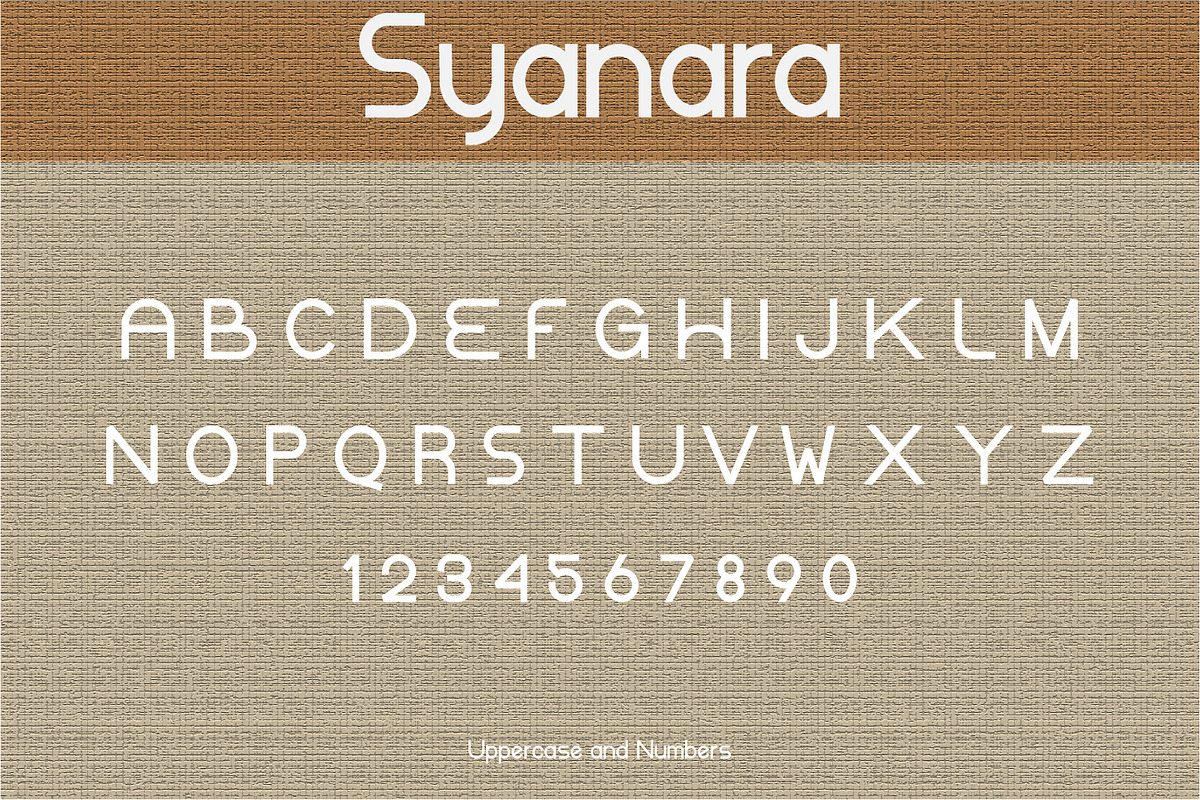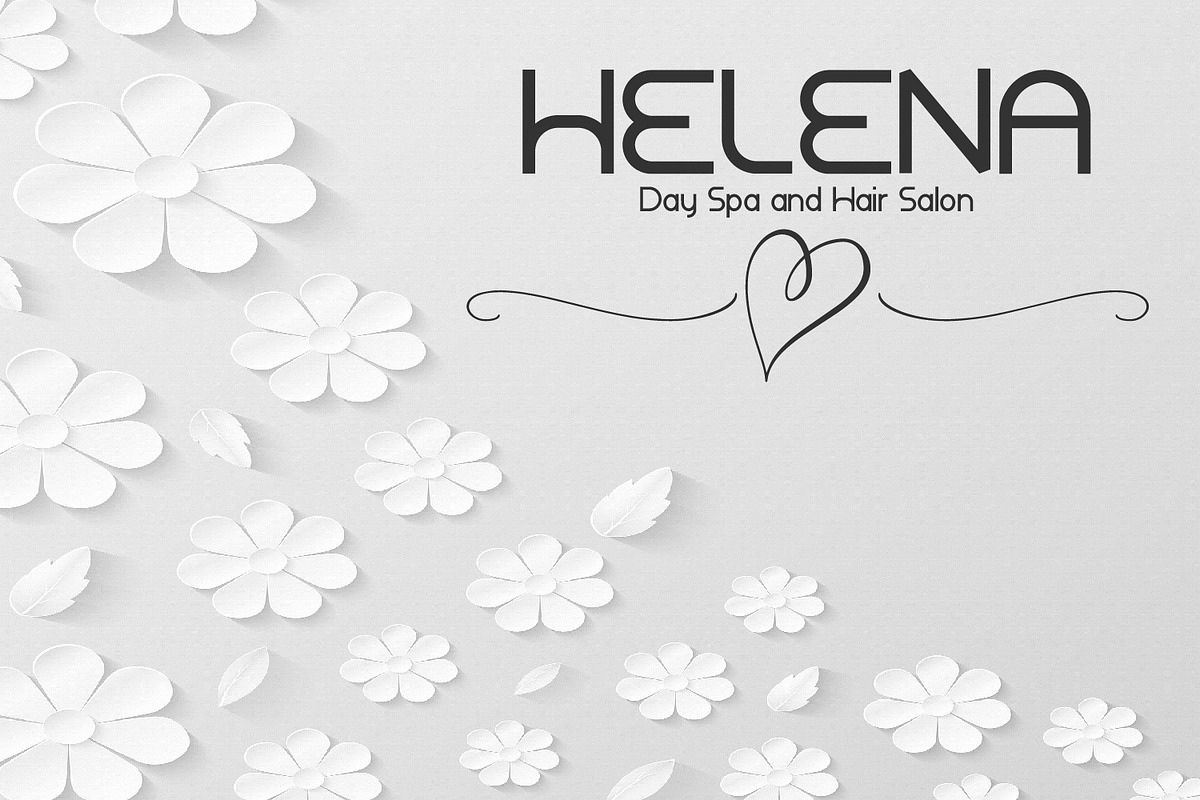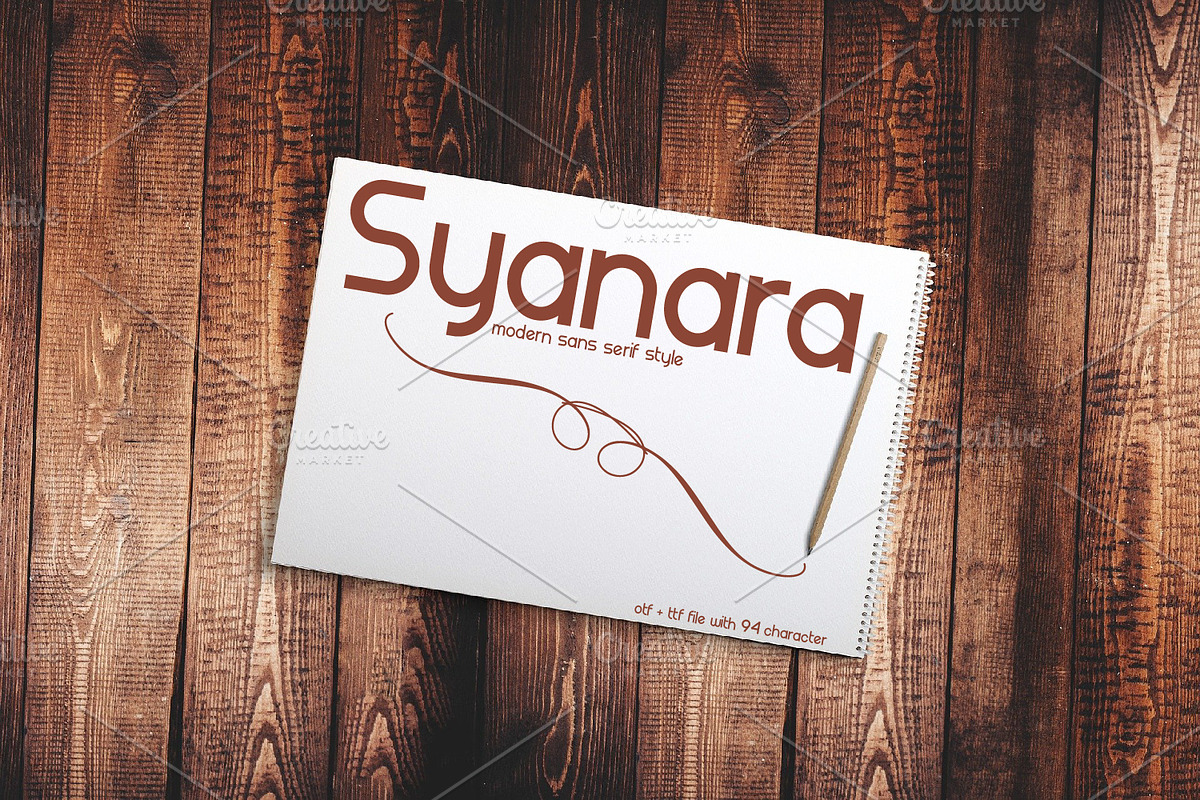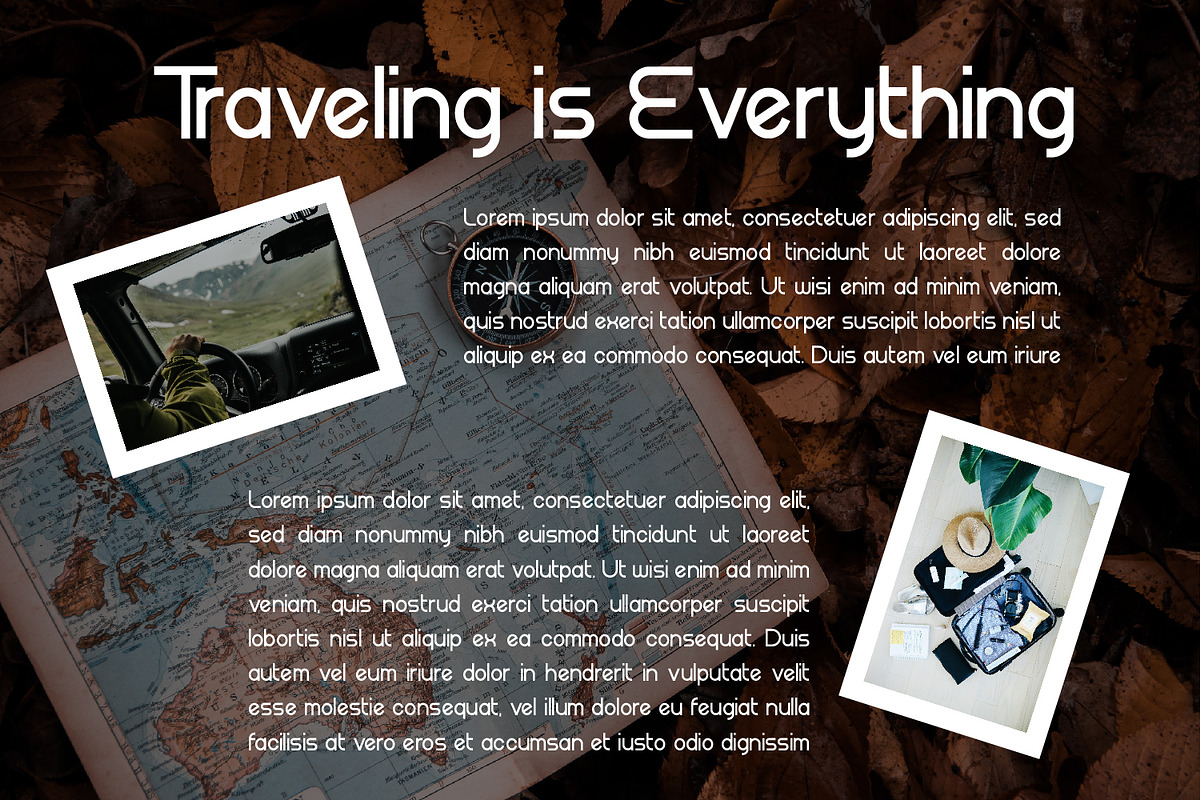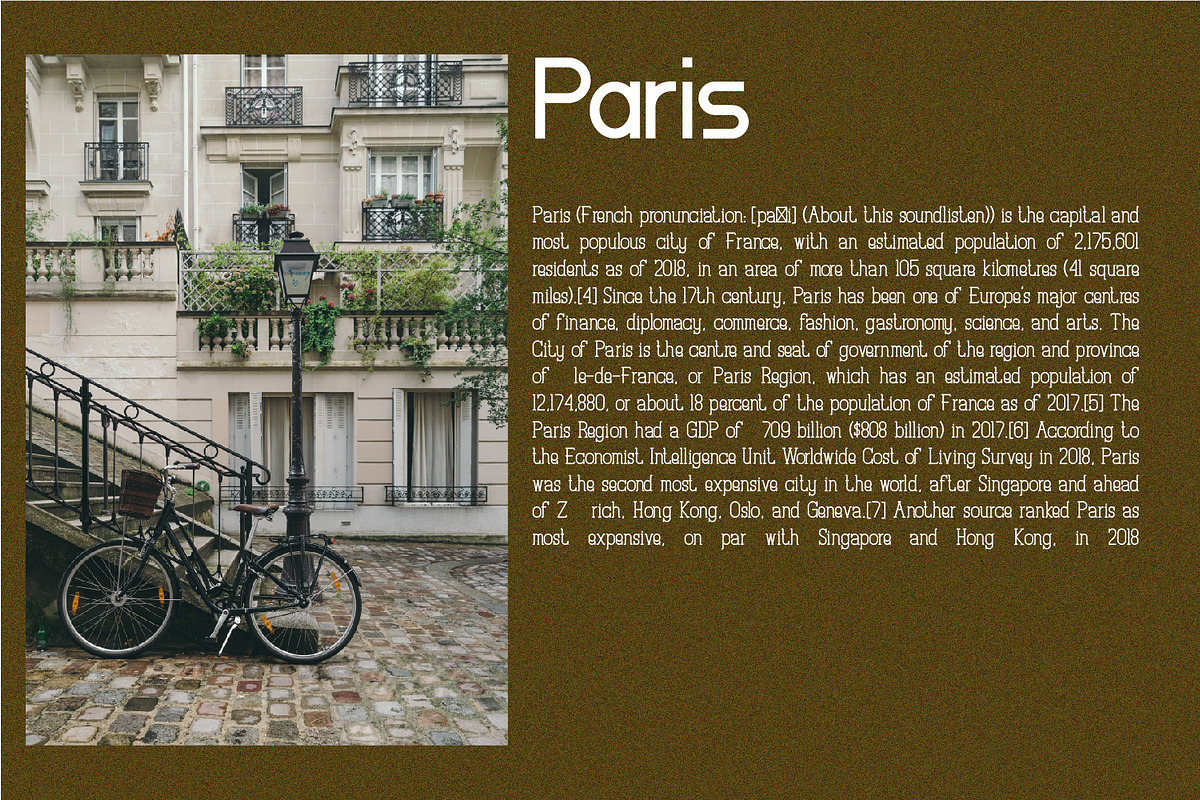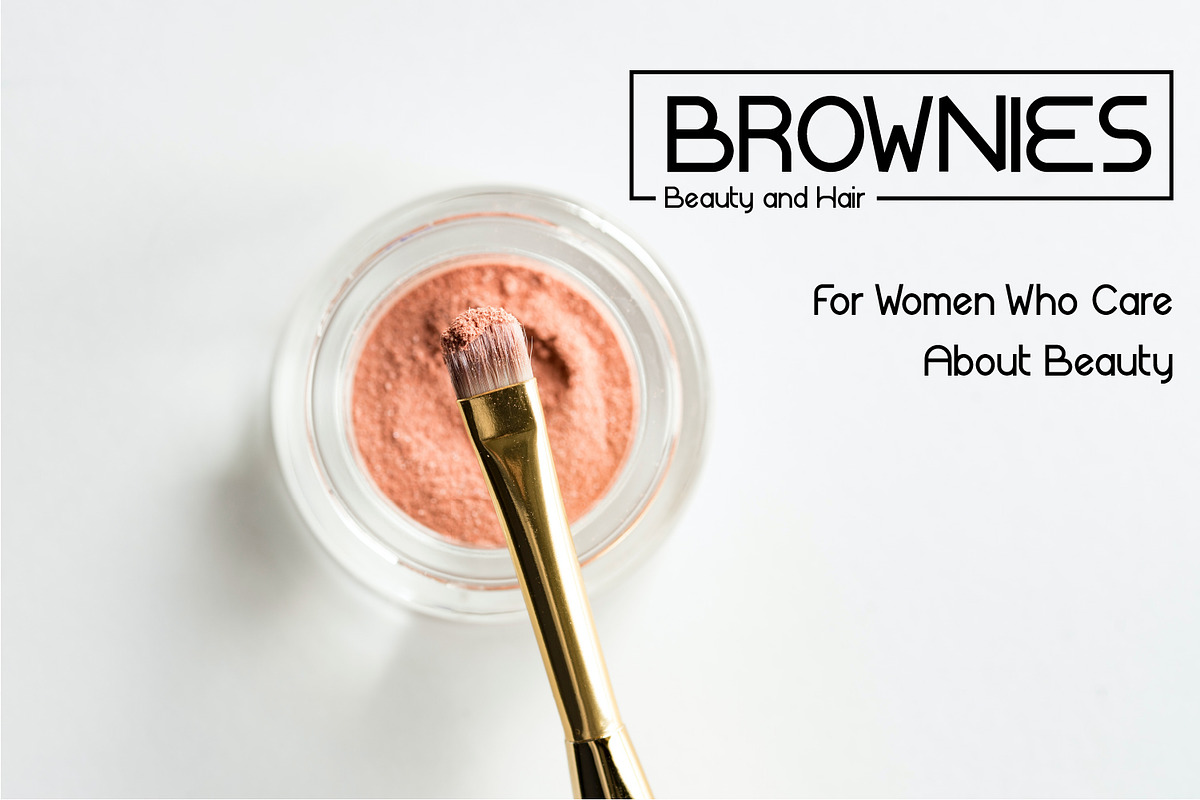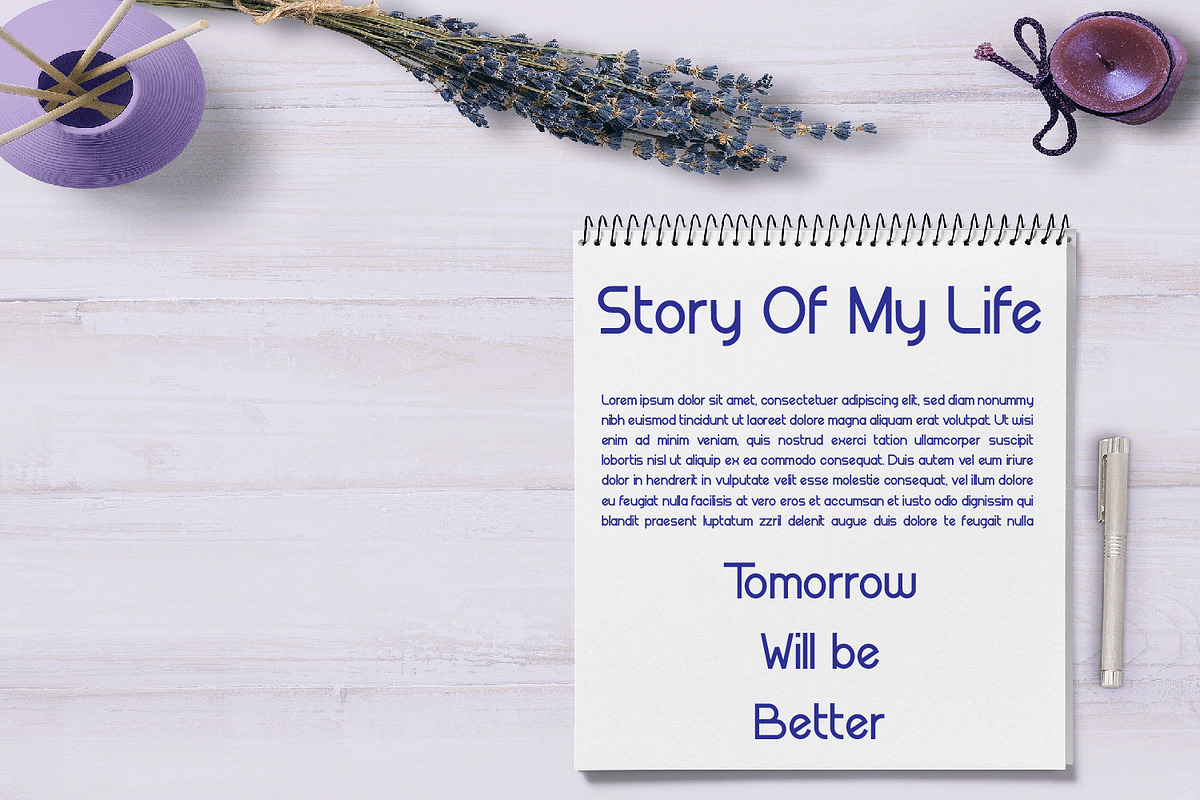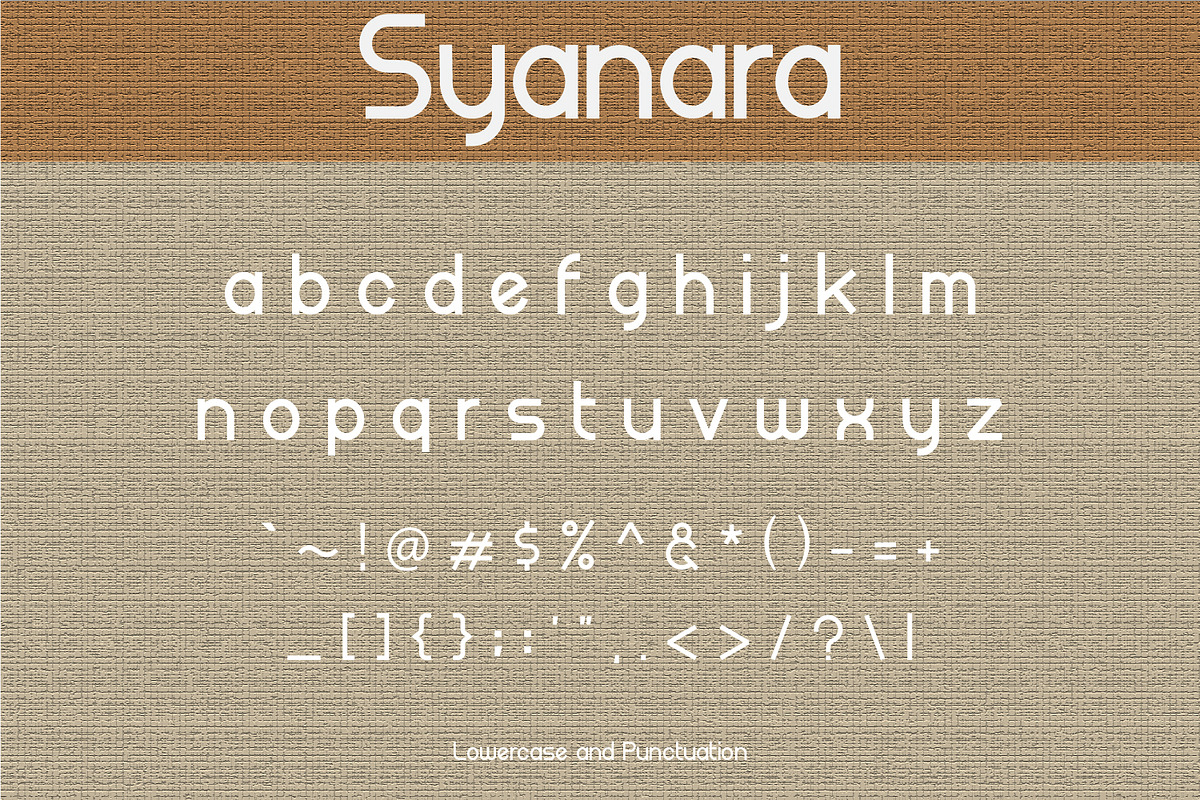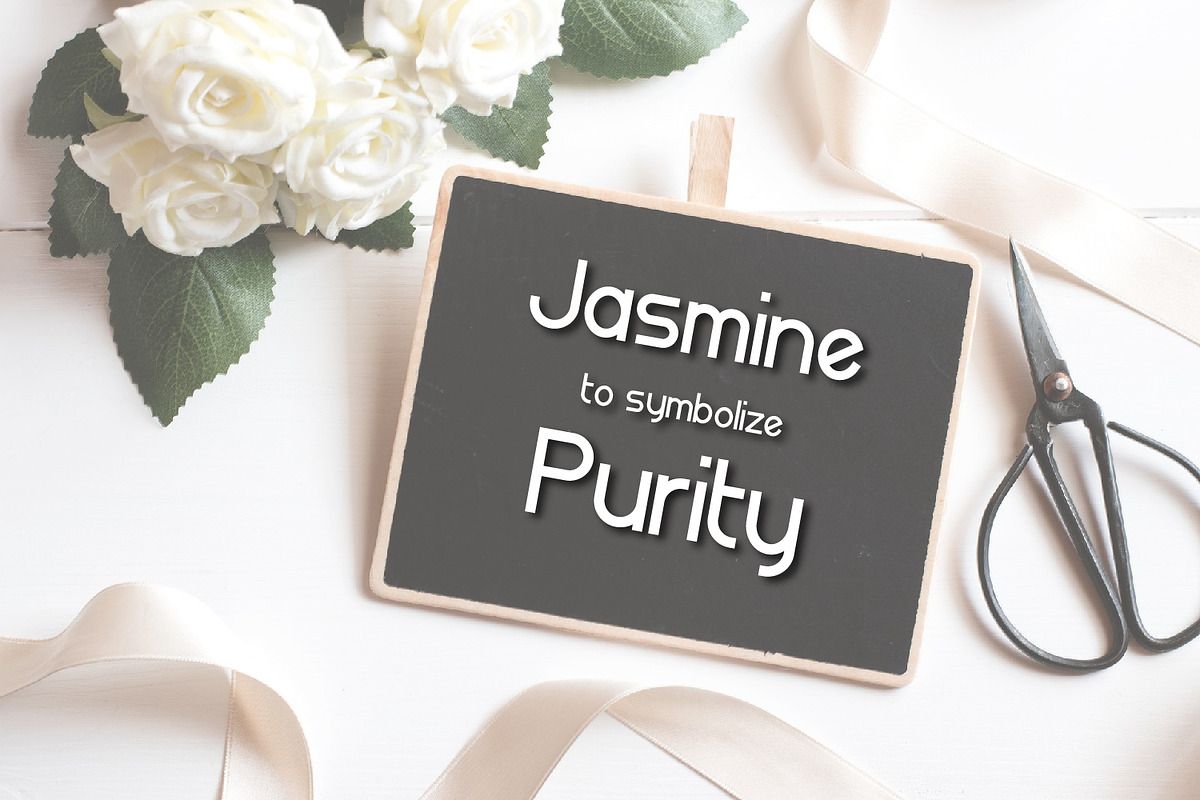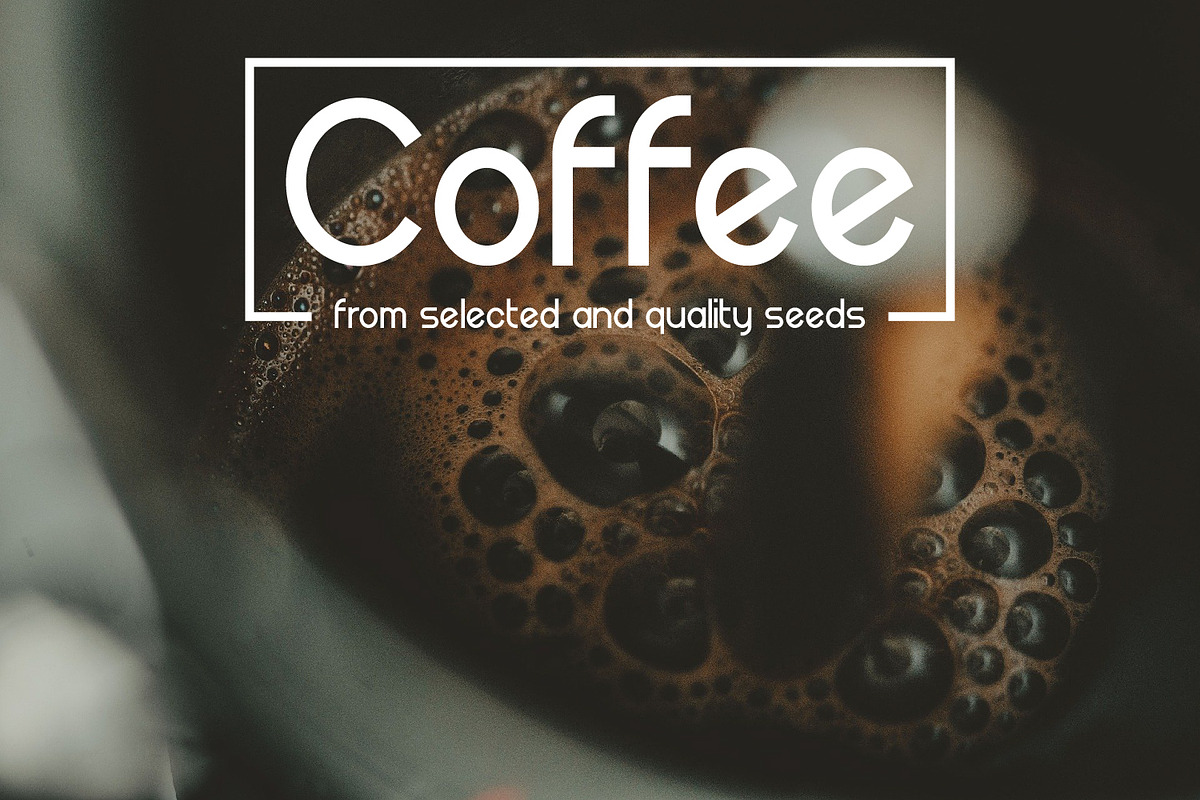
syanara modern sans serif
hello, this is a font named syanara. The design of this font is deliberately simplified to make it easy to read, and this font is also best suited for article titles with a less distracting background. Don't worry, even though this font is suitable as a title, the syanara is no less good if it is used for the body of the article. that way you can use this font as a greeting, invitation card, your business name to stand out, article titles, and much more. and don't forget to use a background that is not too flashy, to make it stand out more and be charming. what you will get